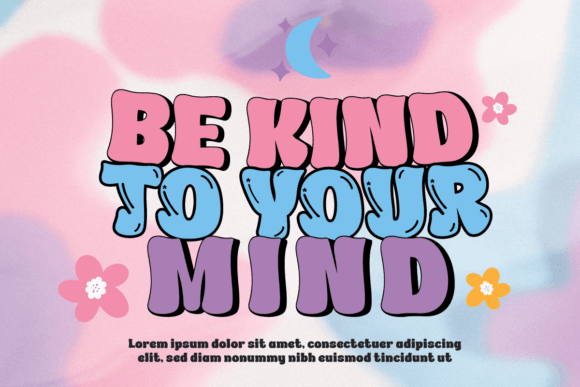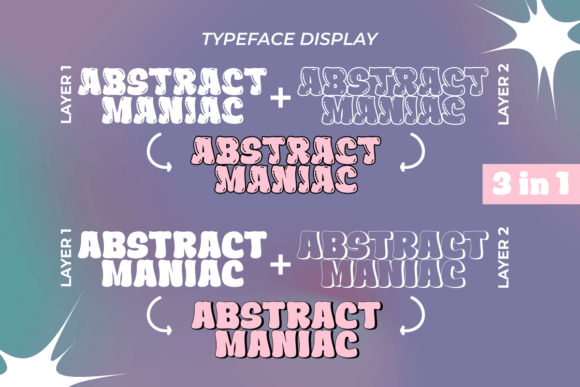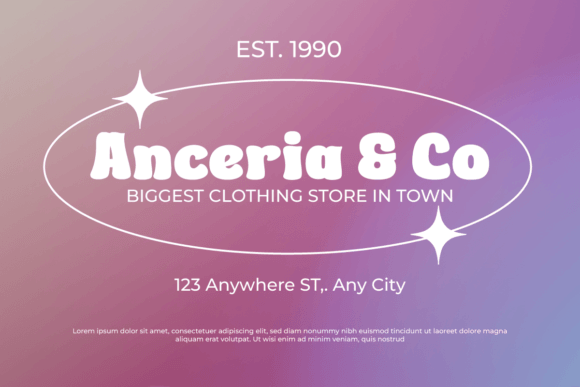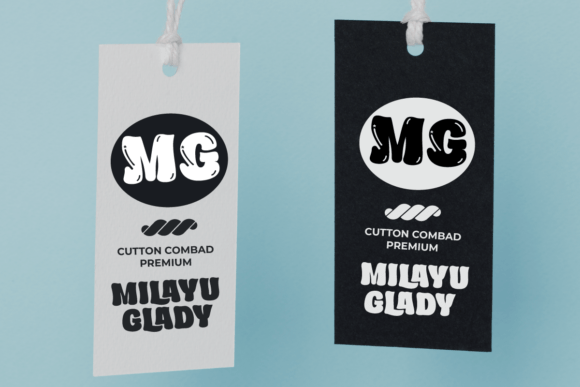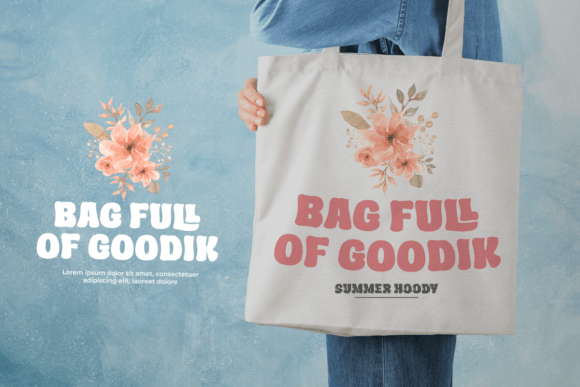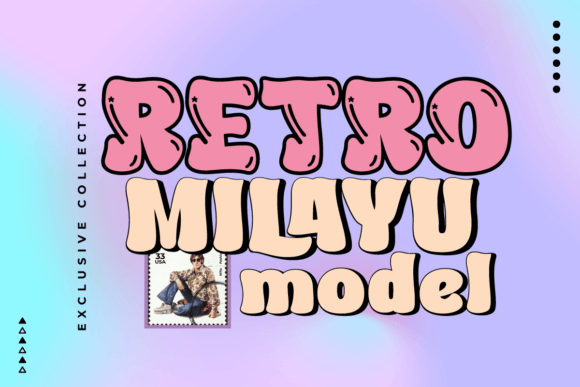
Introduction to Milayu Font
Have you ever been in the middle of a creative project, staring at a blank canvas, and suddenly, an idea strikes? The colors, the typography, the entire aesthetic comes together in your mind’s eye, and you can’t wait to bring it to life. That’s exactly what happens when you discover the perfect font – one that elevates your design and makes it truly unforgettable. Meet the Milayu Font, a Groovy Display font that’s about to become your new best friend.
Whether you’re a seasoned designer or just starting out, the Milayu Font is a game-changer. Its high-quality design and versatility make it the perfect choice for any creative project, from logos to social media graphics and everything in between. With a transparent background and free download option, you can experiment with different styles and effects without any limitations.
Key Features of Milayu Font
- Unique, hand-drawn design with a transparent background, perfect for creative projects.
- Perfect for use in various design contexts, from branding and advertising to digital and print media.
- Features a clean, modern aesthetic, making it an ideal choice for designers working on creative projects.
- Includes a comprehensive character set, supporting multiple languages and scripts.
Honest Review: Milayu Font
I recently had the chance to work with the Milayu Font for a creative project, and I must say it’s been a pleasant experience. The font is available for free download, which is always a great starting point.
- ✨ High-quality design: The Milayu Font boasts a clean and modern design that can elevate any creative project.
- ✨ Transparent background: The font’s transparent background makes it easy to overlay on images or other design elements.
- ✨ Versatile: The Milayu Font can be used for a wide range of creative projects, from typography-based designs to more complex compositions.
- ⚠️ Limited font styles: The Milayu Font is available in a limited number of styles, which might not be suitable for projects that require a wide range of font options.
- ⚠️ Not suitable for large-scale projects: While the font is great for smaller projects, it might not be the best choice for large-scale designs that require multiple font styles and sizes.
Overall, the Milayu Font is a great design resource for anyone looking for a high-quality, free font for their creative projects. While it has its limitations, it’s definitely worth considering for smaller projects or those that require a clean and modern typography.
Use a transparent background to make your design more visually appealing. Experiment with different font sizes and colors to create a unique look. You can also use Milayu Font in combination with other design elements, such as images and graphics, to create a cohesive design.
Milayu Font is commonly used for creative projects, such as social media graphics, presentations, and posters. It’s also used for branding materials, logos, and print materials that require a high-quality design resource.
Does the Milayu Font have a transparent background?
Yes, the Milayu Font includes a transparent background option, making it easy to use on various backgrounds and designs. This feature allows for a seamless integration of the font into your creative project.